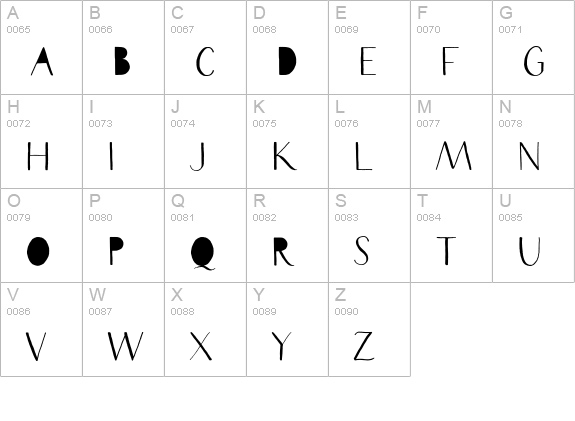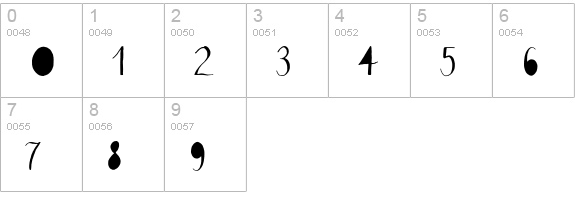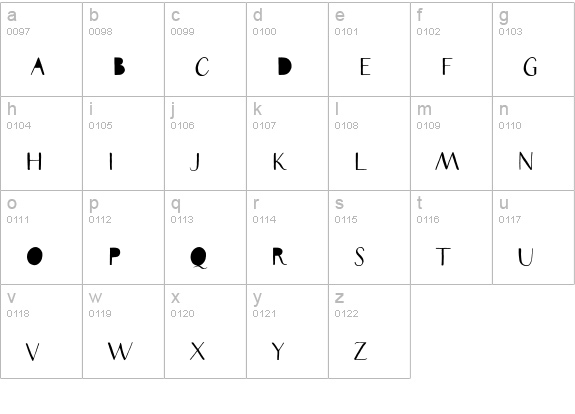
Introducing Salt & Spices Pro SC2 font - a versatile and elegant typeface that adds a touch of sophistication to any design project. This beautifully crafted font offers a perfect balance of contemporary style and classic appeal, making it ideal for a wide range of applications. With its unique blend of sharp edges and intricate details, Salt & Spices Pro SC2 font exudes a sense of refinement and creativity. Whether you're designing a logo, creating a poster, or crafting a wedding invitation, this font is sure to make a lasting impression. Best of all, Salt & Spices Pro SC2 font is available for free download at FontsMarket.com. So you can enhance your projects with this stunning font without breaking the bank. Don't miss out on the opportunity to elevate your designs with the timeless beauty of Salt & Spices Pro SC2 font. Download it today and let your creativity shine!